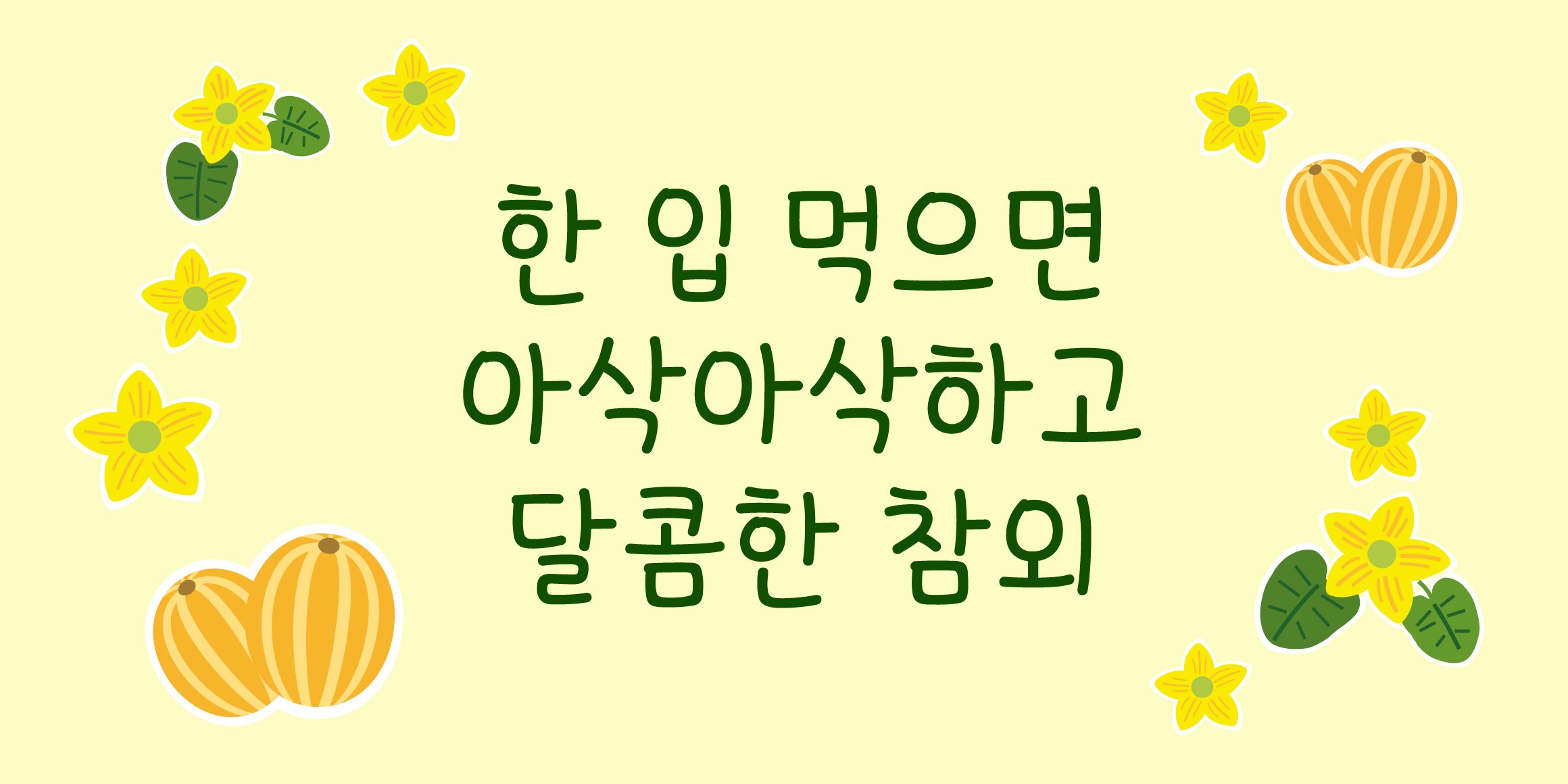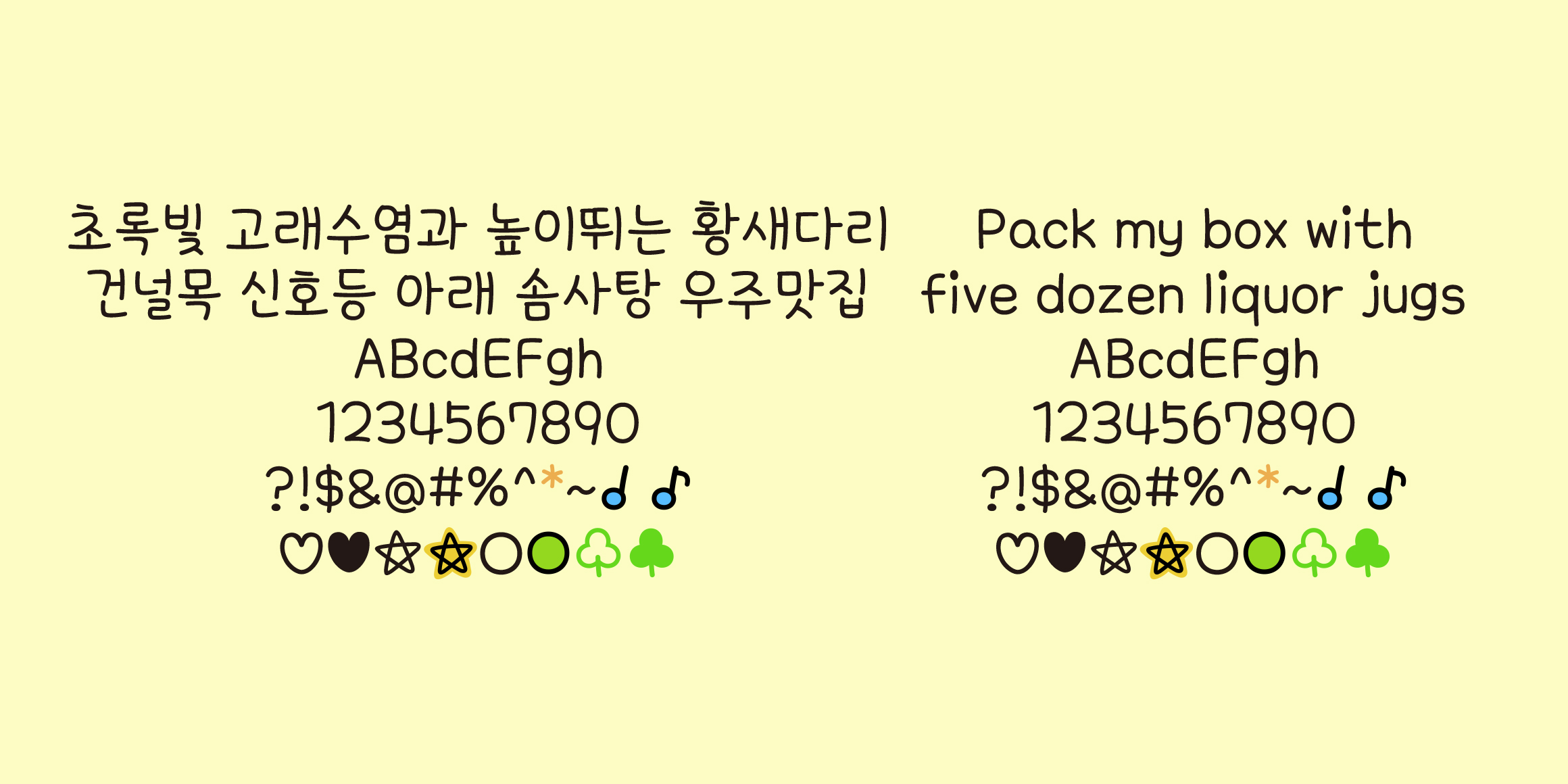
This is a gothic style of cursive.
It's soft yet solid gothic.
There is no problem when reading long texts or watching subtitles on the screen.
- Cat 캣고딕세번째 / Cat CatGothicNo3